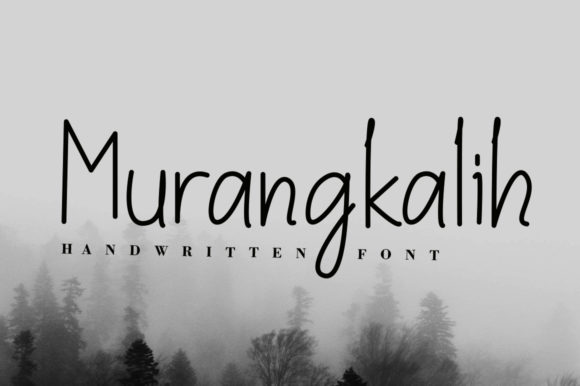
Murangkalih Font: A Script of Grace and Elegance for Unforgettable Moments
Immerse yourself in the world of Murangkalih, a breathtaking script font crafted to elevate your designs to new heights. Each stroke exudes elegance and charm, perfect for capturing the magic of weddings, invitations, and any occasion that demands a touch of timeless beauty.
Murangkalih's graceful curves dance across the page, creating a captivating allure that will leave a lasting impression. Dive into its enchanting world and let your creativity soar. Its versatility knows no bounds, making it a perfect companion for packaging products, flyers, mockups, and event posters.
With Murangkalih, every design becomes a canvas for your imagination. Unleash your artistic flair and create breathtaking invitations that radiate joy and love. Transform your packaging into objects of desire, adorned with flowing script that whispers tales of elegance and sophistication. Let your mockups and posters ignite hearts with their captivating charm.
Murangkalih's beauty extends beyond its visual appeal. It's a font that evokes emotions, setting the perfect tone for your special moments. Whether you're designing a wedding invitation, crafting a heartfelt card, or creating a captivating flyer, Murangkalih will infuse your words with a touch of magic.
Join the countless designers who have fallen in love with Murangkalih's enchanting allure. Let its graceful strokes guide your creativity and create designs that leave an unforgettable mark.